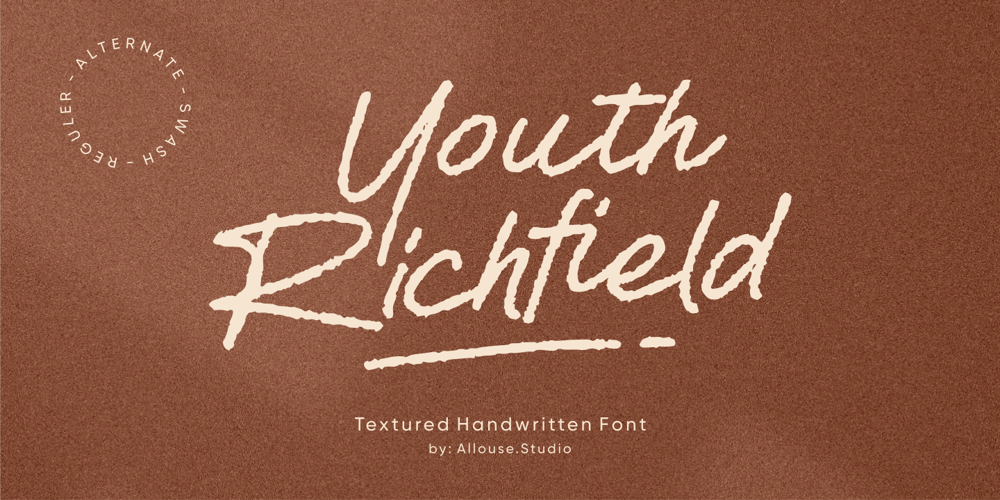
Youth Richfield Font Family was designed by Fachrizal Yusuf and published by Allouse Studio. Youth Richfield contains 3 styles and family package options. Proudly Presenting, Youth Richfield a Textured Handwritten Font.Youth Richfield is perfect for product packaging, branding project, megazine, social media, wedding, or just used to express words above the background.Youth Richfield also come with MultiLingual Support.Enjoy the font, feel free to comment or feedback, send me PM or email. Thank You!